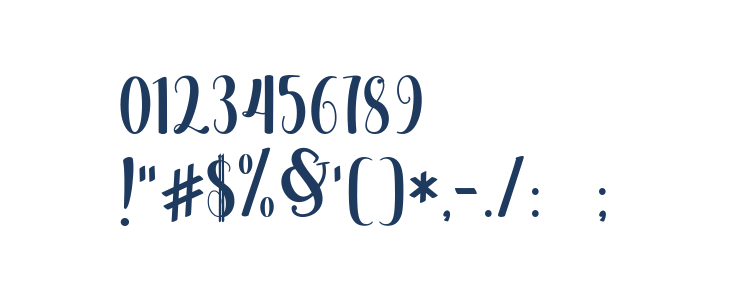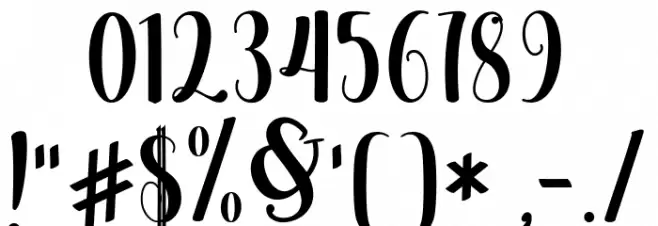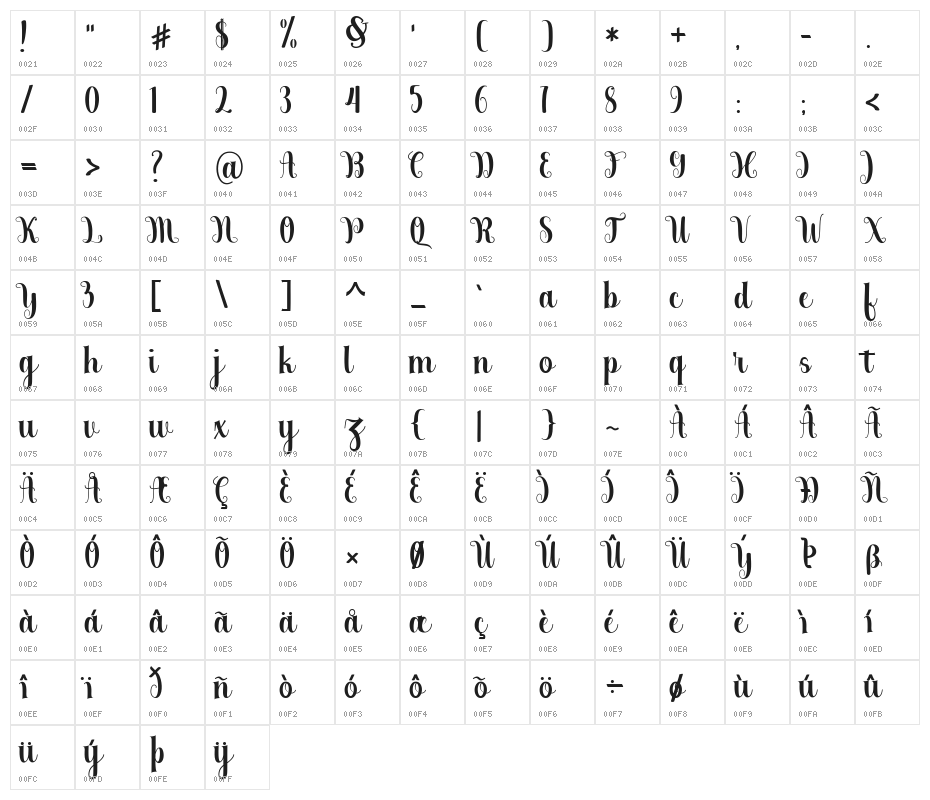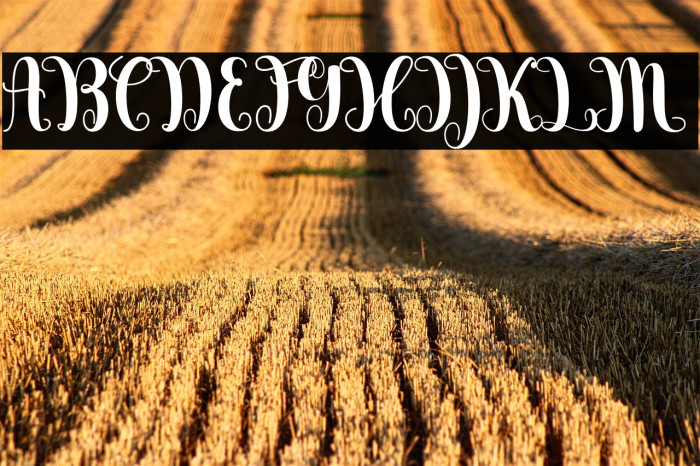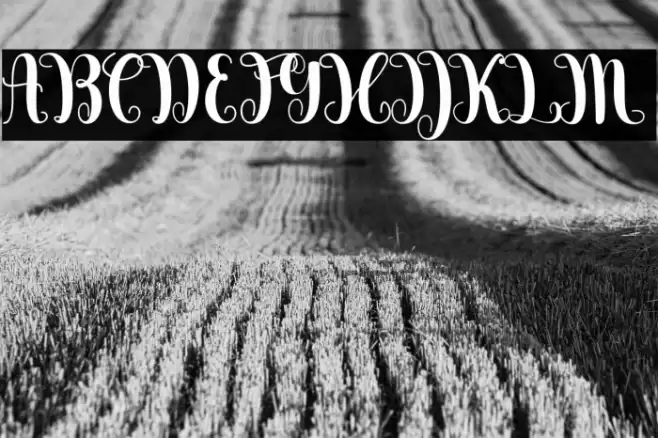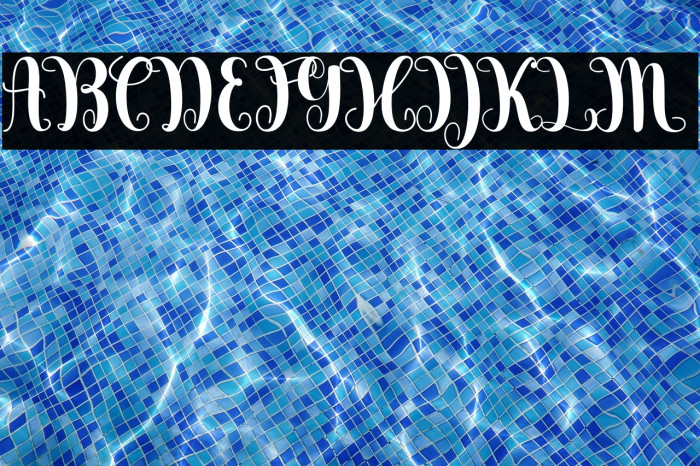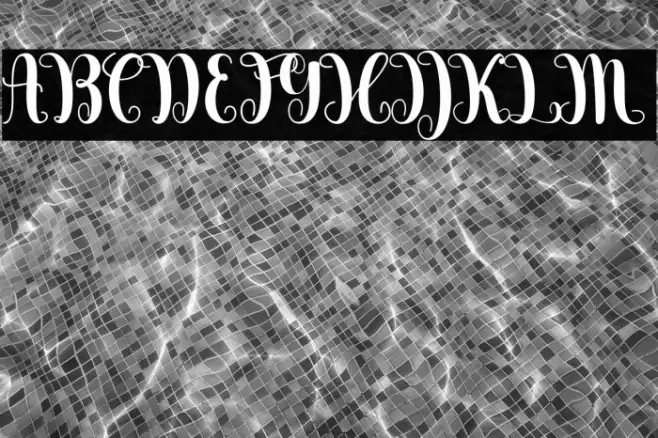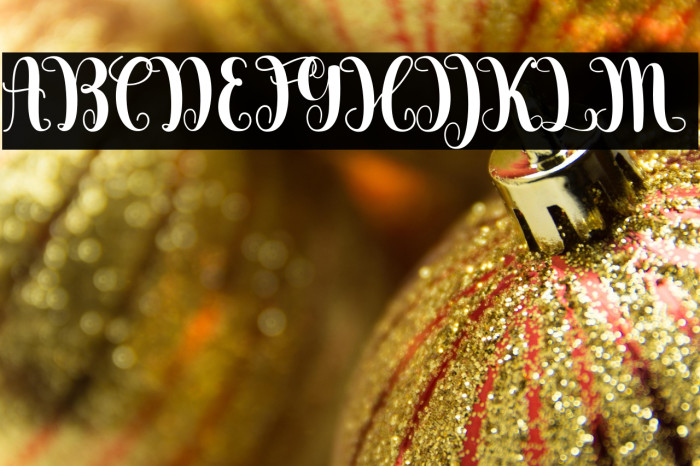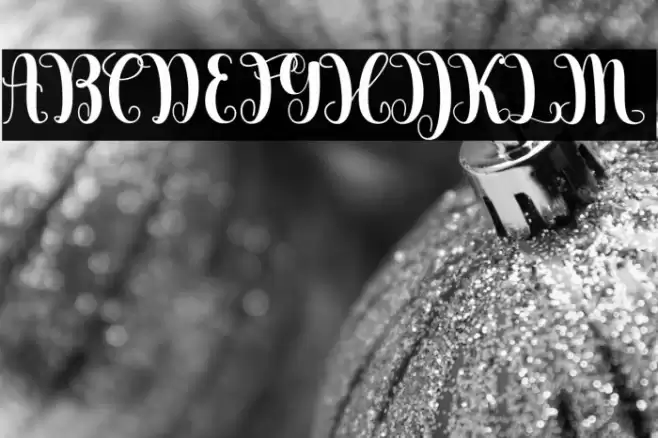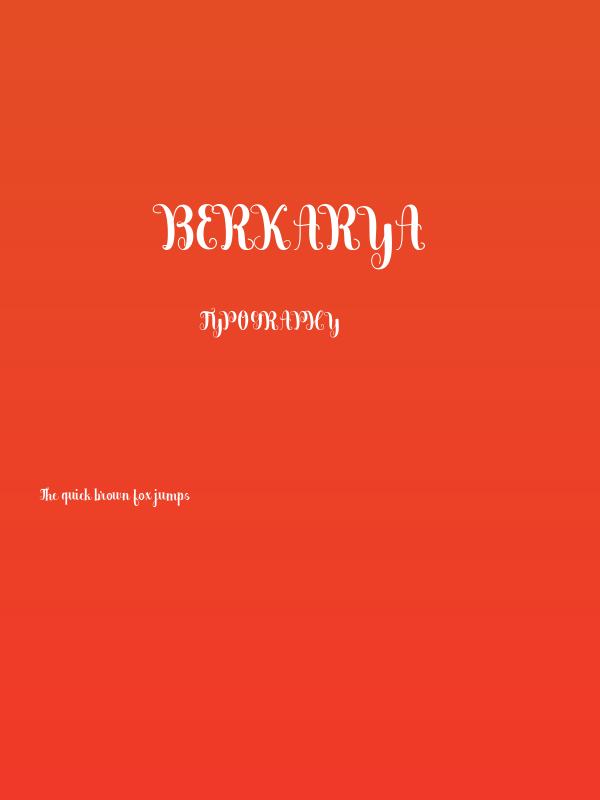
Berkarya Font
Berkarya Description
This font features an elegant and decorative style with a script-like appearance. The uppercase letters are adorned with intricate swirls and loops, giving them a sophisticated and artistic flair. The lowercase letters maintain a consistent flow, with some characters extending below the baseline, adding to the font's graceful aesthetic. The numerals are uniquely styled, matching the overall decorative theme, while the special characters are designed to complement the letterforms. This font's ornate design makes it suitable for projects that require a touch of elegance and creativity.
| Proposed Projects | Ideal for wedding invitations, greeting cards, branding, and decorative headlines. |